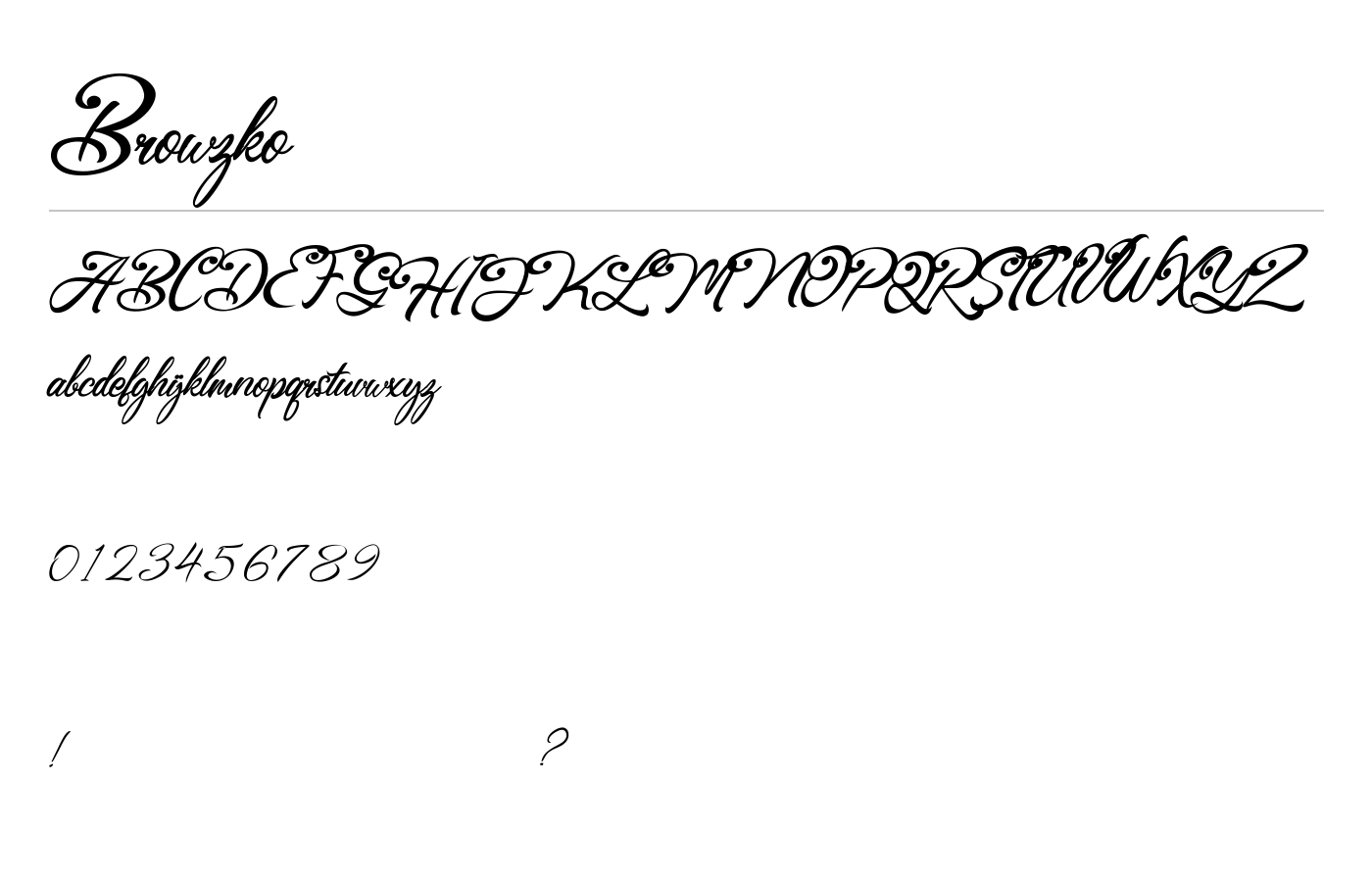
Browzko is an elegant script font featuring delicate, flowing letterforms with graceful curls and flourishes, giving it a refined and artistic feel. Its slender strokes and high contrast between thick and thin lines make it ideal for sophisticated branding, invitations, and decorative headlines where a touch of luxury and creativity is desired. This font works best in designs that aim to communicate elegance, charm, and a personal, handcrafted touch.
Browzko Font
About Browzko Font
| Designer | 160 Studio |